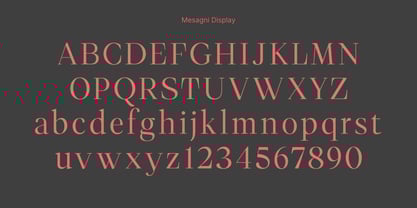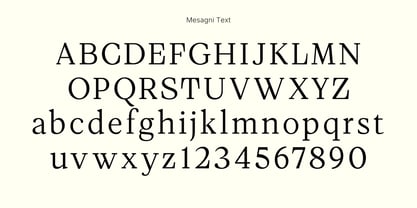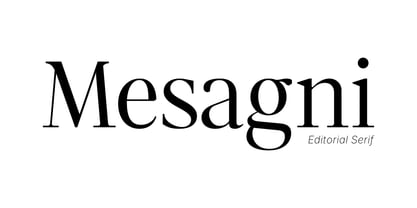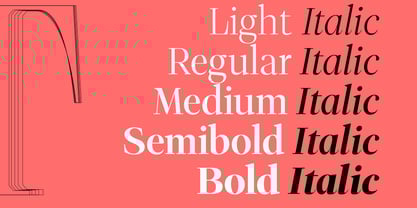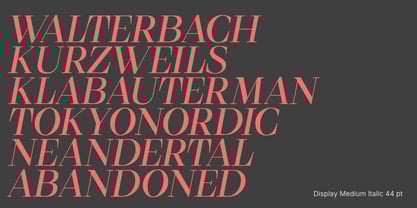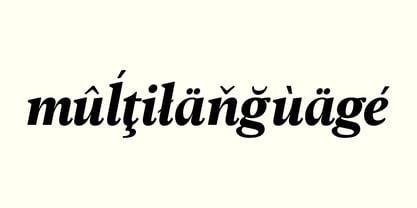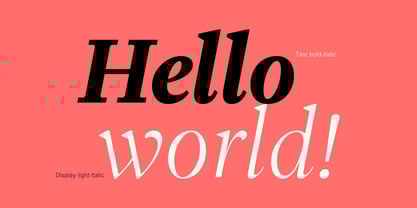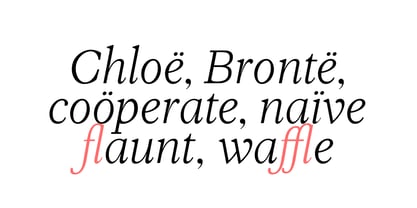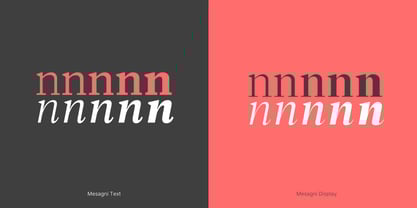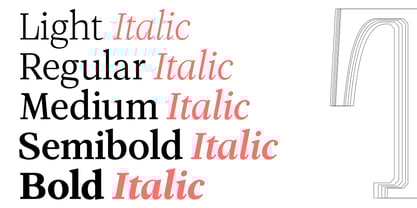
Mesagni
Die Schriftfamilie Mesagni wurde von Intan Driyo entworfen und von Onje Studio veröffentlicht. Mesagni enthält 20 Stile und Familienpaketoptionen.
Introducing Mesagni, an editorial serif display and text that optimized for both headlines and body text.
Mesagni provides 5 weights sizes making it the perfect choice for magazines, newspapers, branding, and digital publications.
Features:
• 5 Weight + Italic
• Uppercase, Lowercase, Small cap
• Ligature
• Numeral, Symbol, Punctuation
• Diacritics (Multilanguage)